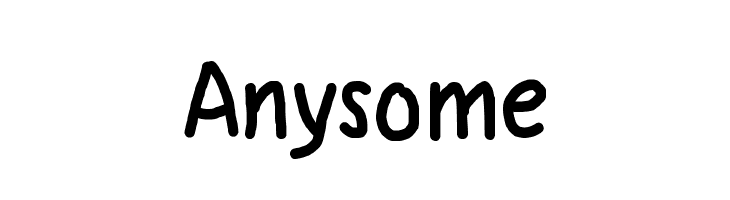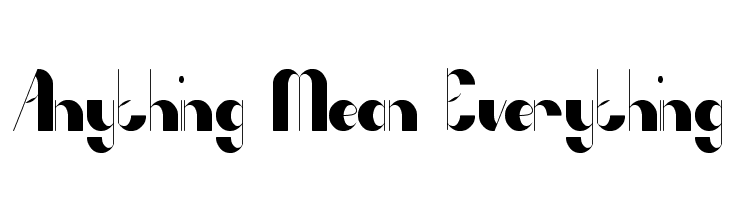
A bold, brush-style font with a hand-drawn, energetic appearance.
A geometric, angular font with a futuristic and bold design.
A sophisticated cursive script with decorative swirls and elegant curves.
An elegant script font with flowing, decorative letterforms.
A playful, bubble-like font with bold, rounded characters and a three-dimensional outline.
A playful, bold, and hand-drawn font with rounded edges.
A playful, bold font with a hand-drawn, rounded style.
A playful, hand-drawn font with a sketch-like, dimensional appearance.
A tall, narrow, and modern font with high contrast and minimalistic style.
A bold, cursive script font with a lively and connected style.
A bold, geometric font with a futuristic and angular design.
A lively and expressive handwritten font with dynamic strokes and artistic flair.
A bold, decorative font with playful, rounded characters resembling abstract shapes.
A bold, flowing script font with elegant, hand-drawn curves.
A bold, angular font with a futuristic and dynamic design.
An elegant, flowing script font with a calligraphic style.
A handcrafted, calligraphic font with elegant, flowing curves and artistic flair.
A bold, playful handwritten font with rounded, irregular characters.
A lively and elegant handwritten script font with bold uppercase and smooth lowercase letters.
A bold, dripping font with a spooky, wax-like appearance.
A playful, bold handwritten font with rounded edges and a whimsical style.
A playful, cursive script font with flowing, connected letterforms.
A modern, geometric font with smooth curves and sharp angles.
A bold, distressed font with a scratched, edgy appearance.
A delicate, flowing script font with elegant cursive letterforms.
A bold, modern font with rounded, playful characters.